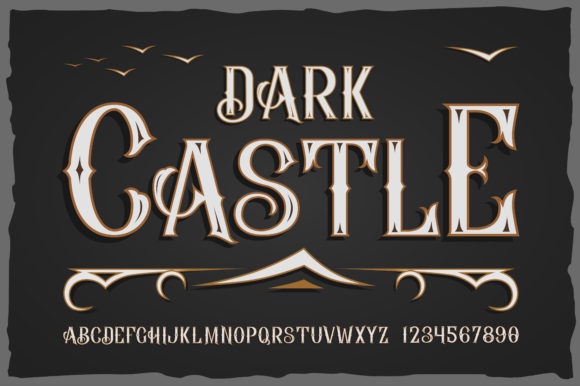
Dark Castle Font: The Ultimate Choice for Bold and Vintage Styled Designs
Are you looking for a font that can add a touch of elegance and sophistication to your designs? Look no further than the Dark Castle font. This bold, imposing, and vintage-styled display font is perfect for creating eye-catching posters, titles, and headlines that will make your creations stand out.
What is Dark Castle Font?
Dark Castle font is a typeface designed to evoke a sense of nostalgia and luxury. Its bold and imposing design makes it perfect for use in headlines, titles, and other display text. The font features a vintage style that is reminiscent of classic castles and medieval times, making it ideal for designs that require a sense of history and grandeur.
Key Features of Dark Castle Font
- Bold and Imposing Design: The Dark Castle font features a bold and imposing design that is sure to grab attention.
- Vintage Style: The font has a vintage style that is reminiscent of classic castles and medieval times.
- Highly Legible: Despite its bold design, the Dark Castle font is highly legible, making it perfect for use in headlines and titles.
- Multilingual Support: The font supports multiple languages, making it a great choice for designers who work with international clients.
Uses of Dark Castle Font
The Dark Castle font is a versatile typeface that can be used in a variety of design projects. Here are some of the most popular uses of the font:
- Posters and Flyers: The font is perfect for creating eye-catching posters and flyers that require a bold and attention-grabbing headline.
- Logos and Branding: The Dark Castle font can be used to create logos and branding materials that require a sense of luxury and sophistication.
- Headlines and Titles: The font is ideal for use in headlines and titles, where its bold design can make a big impact.
- Packaging Design: The font can be used in packaging design to add a touch of elegance and sophistication to product labels and packaging.
Benefits of Using Dark Castle Font
There are many benefits to using the Dark Castle font in your designs. Here are some of the most significant advantages:
- Unique and Eye-Catching Design: The font features a unique and eye-catching design that is sure to grab attention.
- Highly Versatile: The Dark Castle font is highly versatile and can be used in a variety of design projects.
- Easy to Read: Despite its bold design, the font is easy to read, making it perfect for use in headlines and titles.
- Supports Multiple Languages: The font supports multiple languages, making it a great choice for designers who work with international clients.
In conclusion, the Dark Castle font is a bold, imposing, and vintage-styled display font that is perfect for creating eye-catching posters, titles, and headlines. Its unique and eye-catching design, highly legible, and multilingual support make it a great choice for designers who want to add a touch of elegance and sophistication to their designs.